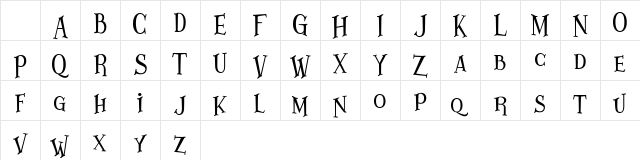
Lazarrous is a composed and adaptable typeface that performs quietly and consistently across a wide range of design contexts.
Pro Tip: Use Lazarrous in both headline and body roles to test its range before committing to a single application.